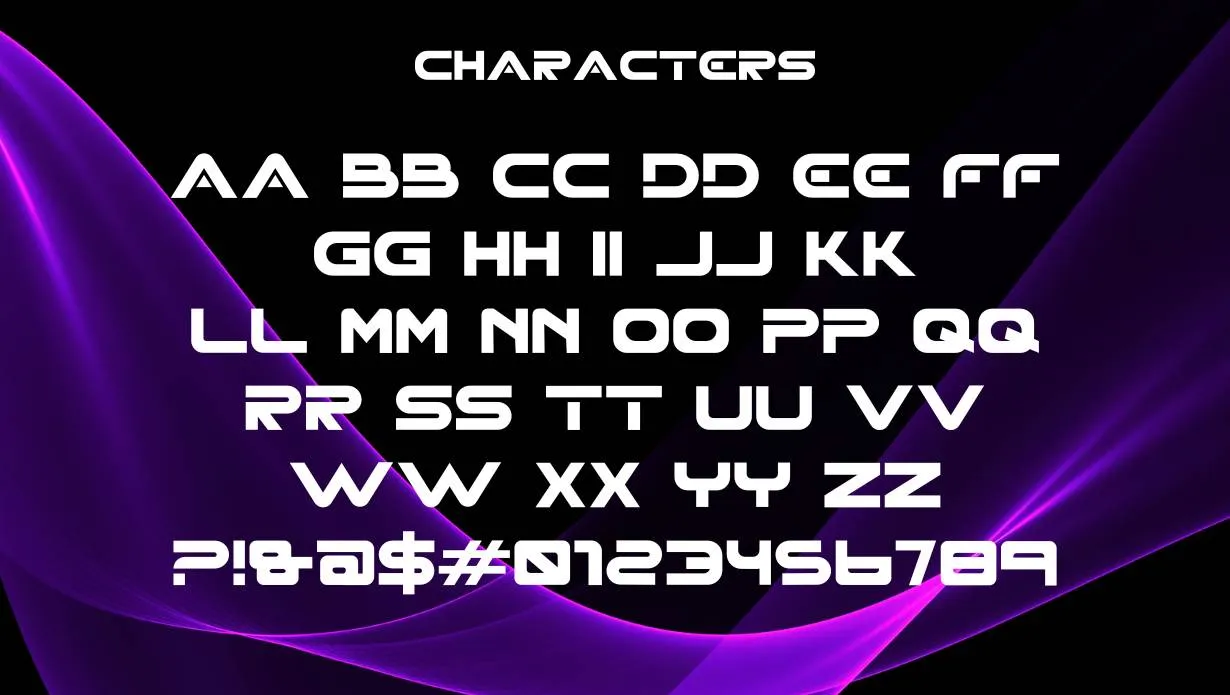
Introducing the XHarp Futuristic Modern font, designed by the talented Xander Harp. This font is perfect for projects looking for a sleek and contemporary style.
Its clean lines and innovative design make it a perfect fit for digital interfaces, technology-related content, or any creative endeavor that embraces a forward-looking aesthetic.
View of XHarp Futuristic Modern Font
XHarp Futuristic Modern Font Info
| Name | XHarp Futuristic Modern Font |
| Designer | Unknown |
| Style | Techno |